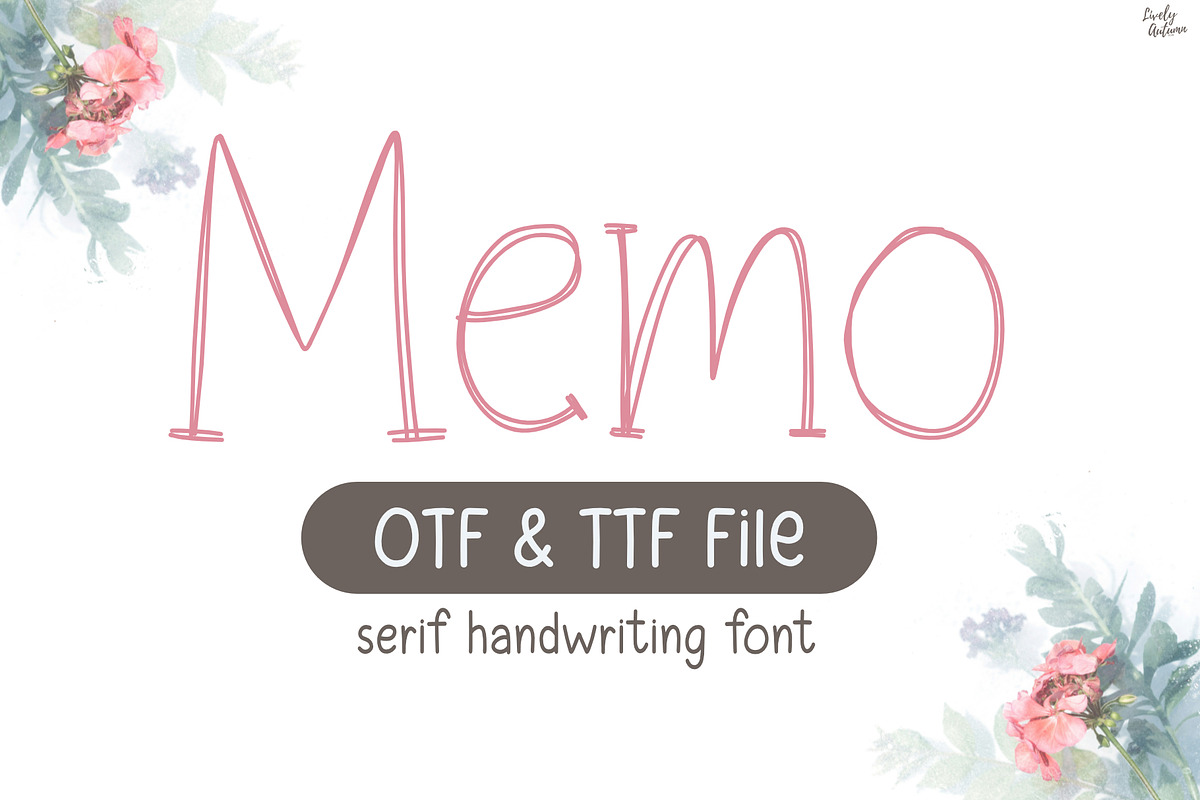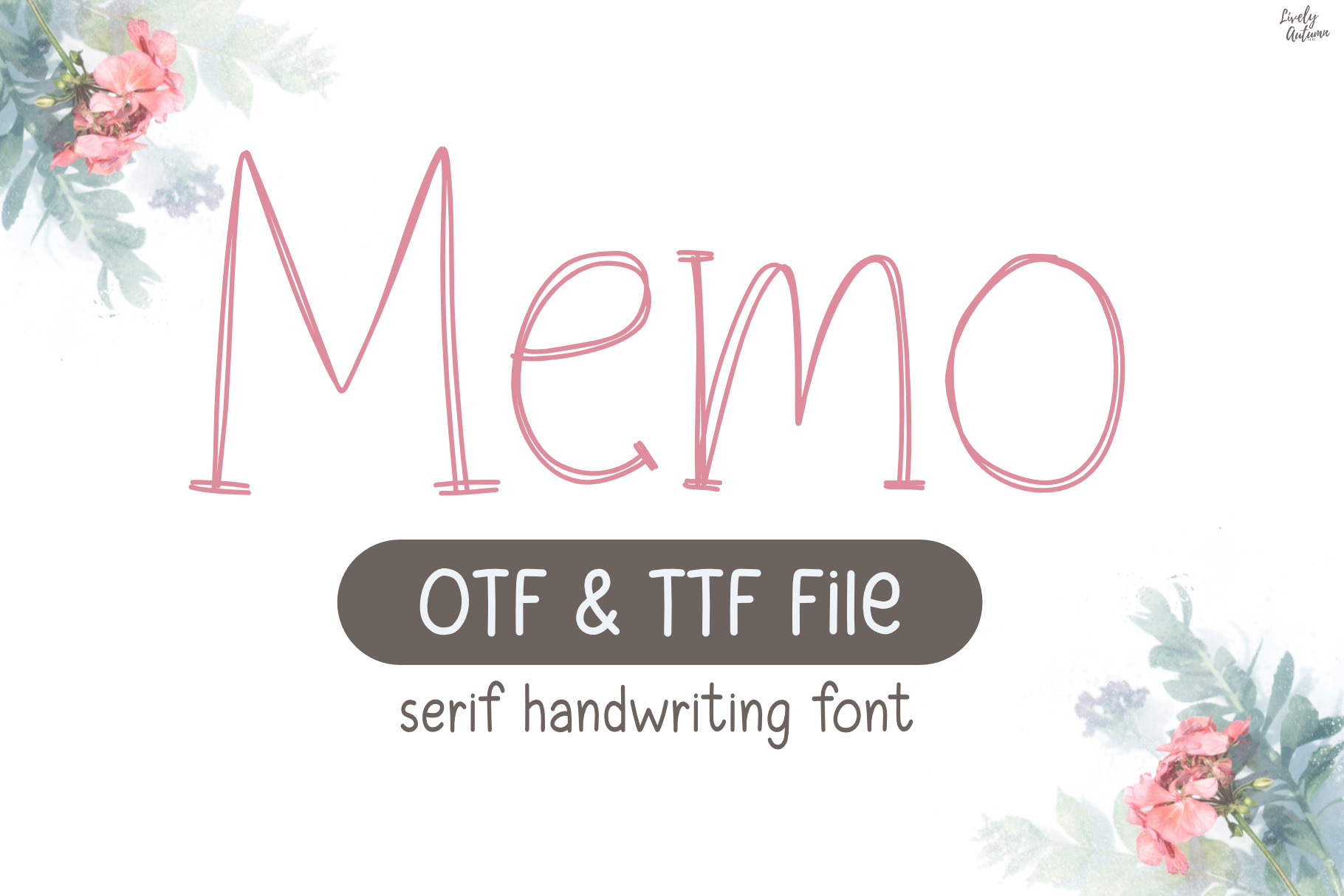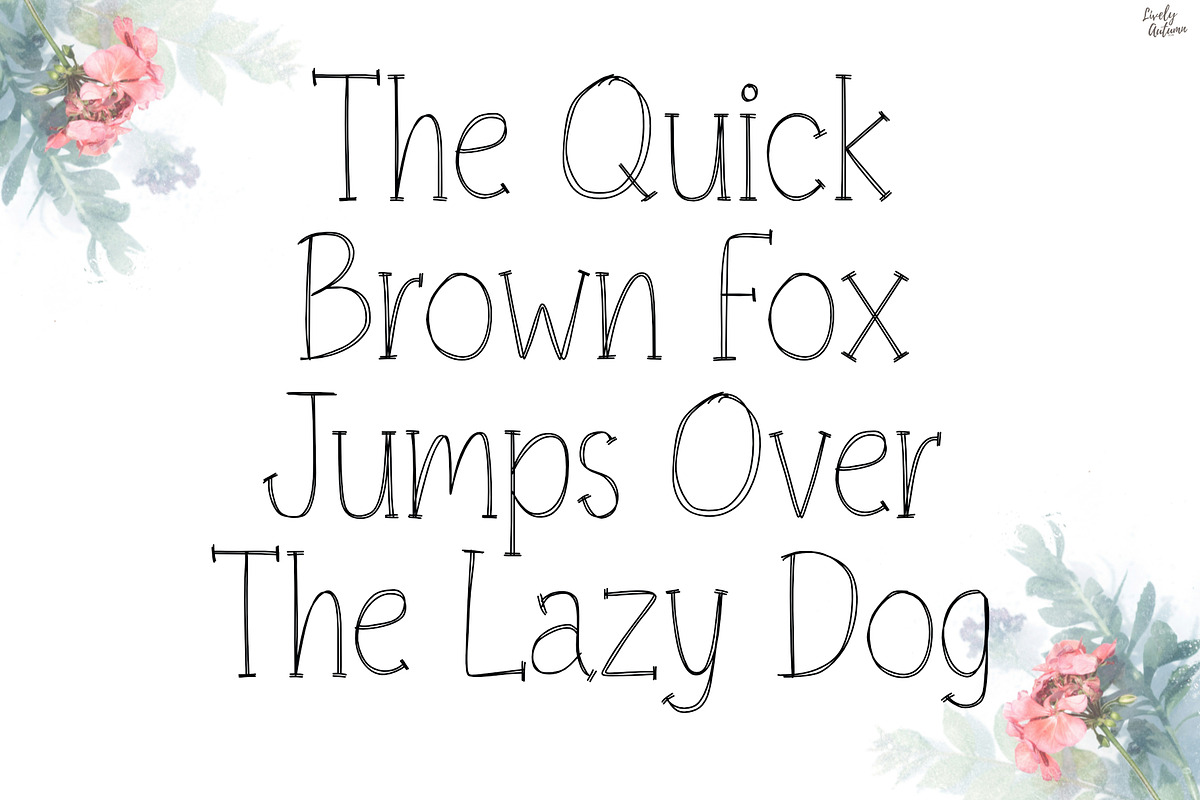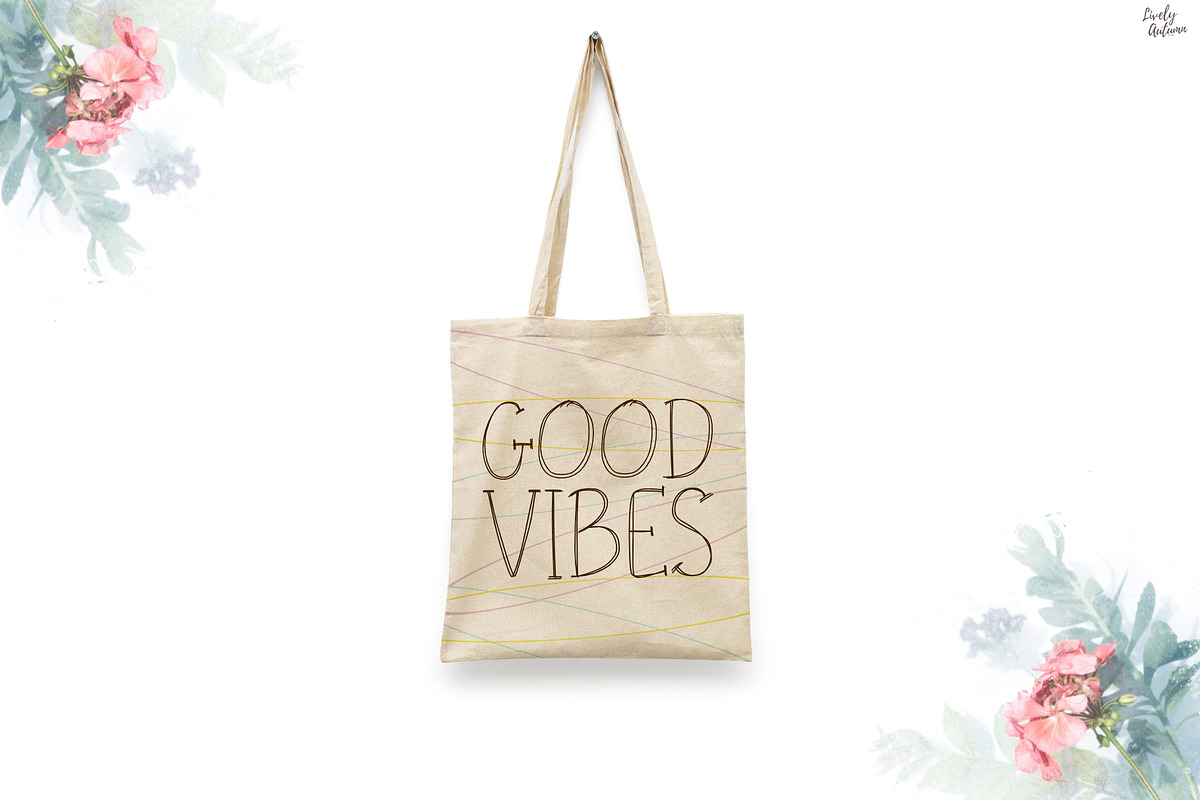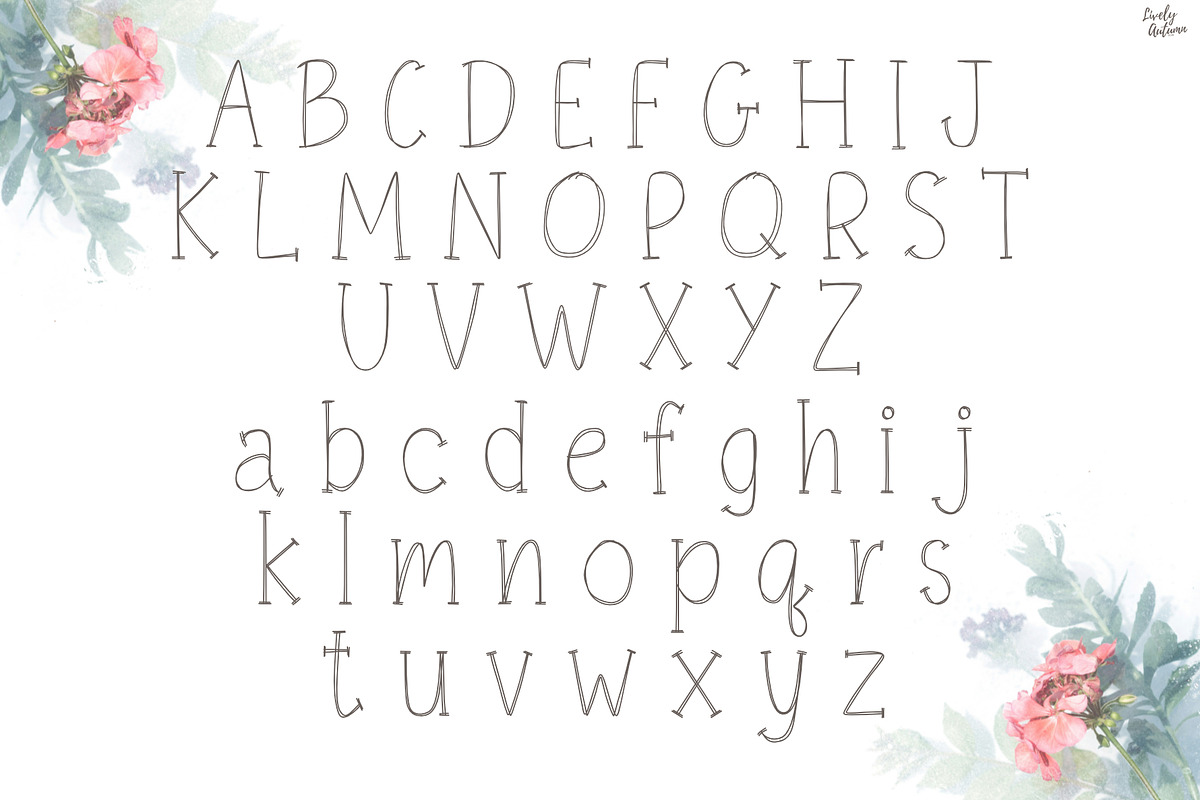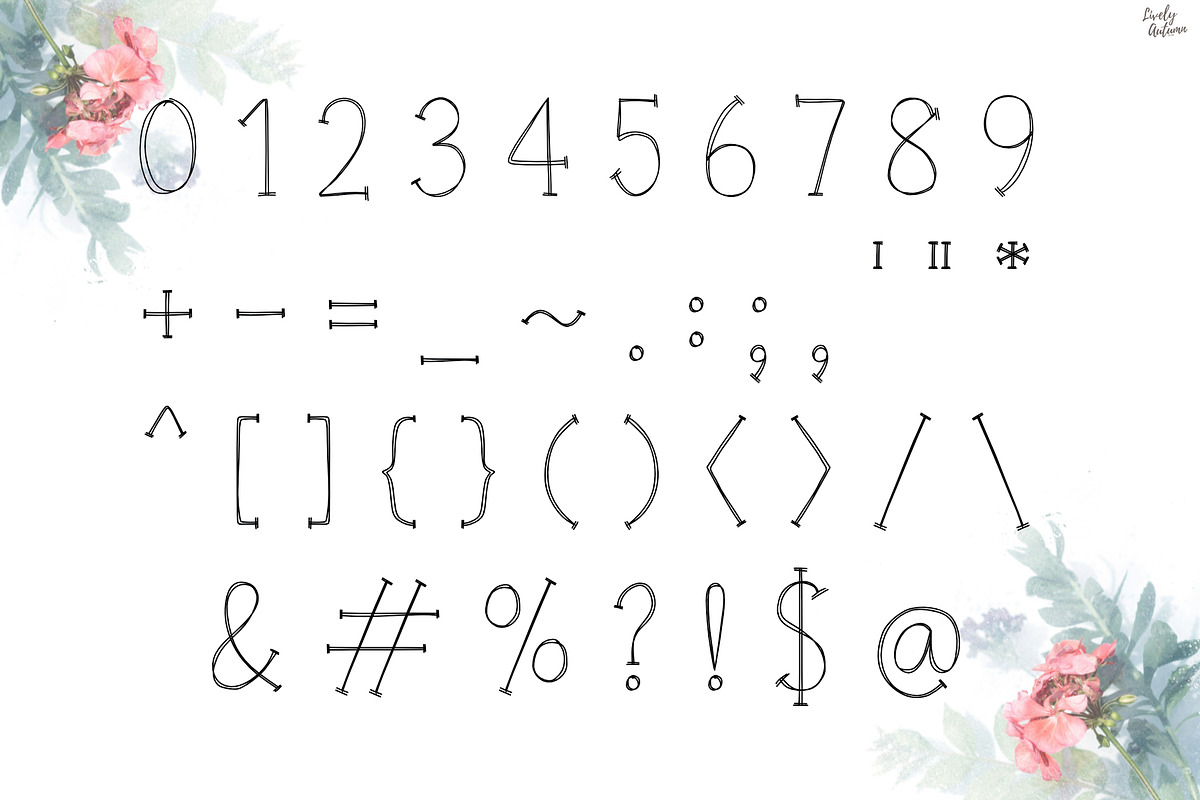
Memo | Serif handwriting font
Memo is a doodle serif handwriting font. Perfect personal projects and various projects. From invitations to posters, social media graphics, journals, stickers and much more.
Font includes: uppercase, lowercase, numbers, and punctuation